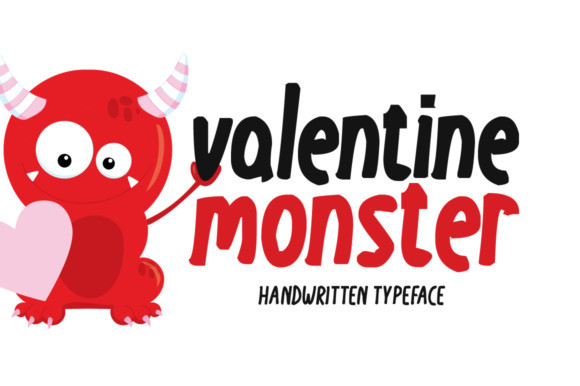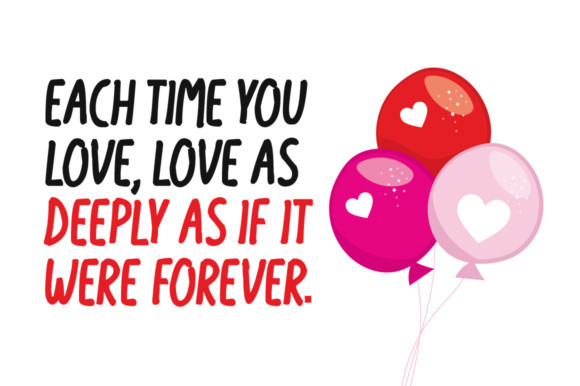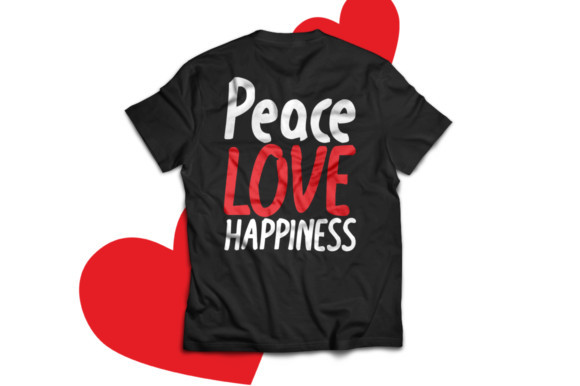
Valentine Monster Font
Valentine Monster is a romantic and playful handwritten font. Valentine Monster is perfectly suited for stationery, logos, t-shirt, paper, print design, website header, photo frame, flyer, music cover, poster, image slider and much more.